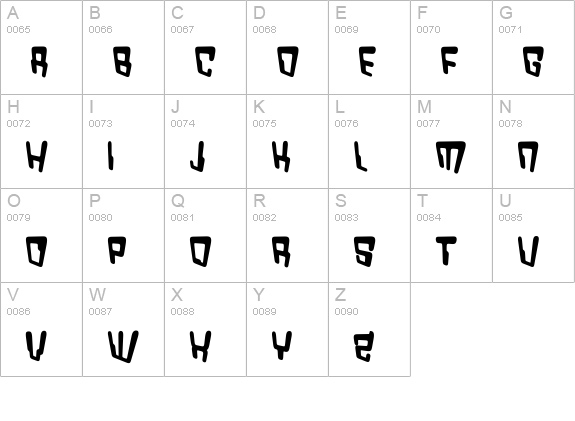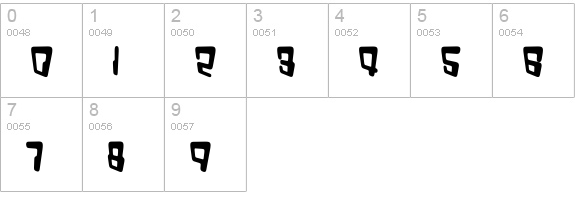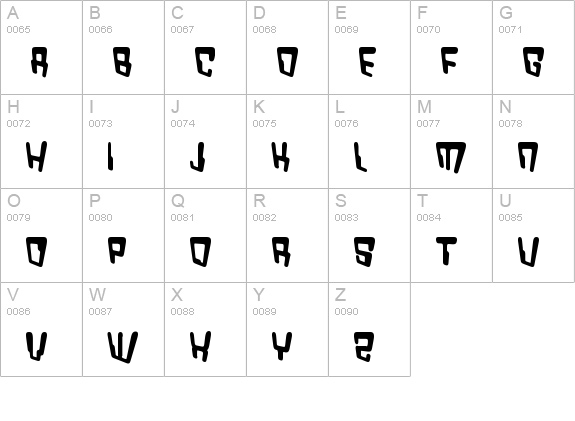
VTC Bad DataTrip Bold Font Details
VTC Bad DataTrip Bold is a strong, high-contrast variant in the VTC typeface family \xE2\x80\x94 well suited to headlines, attention-grabbing titles, and strong calls-to-action.
Introducing VTC Bad DataTrip Bold font, a captivating typeface that exudes a bold and adventurous spirit. This font is perfect for anyone seeking to add a touch of edginess and modernity to their designs. With its strong and impactful letterforms, VTC Bad DataTrip Bold demands attention and effortlessly stands out from the crowd. This font's unique character lies in its rugged and distorted appearance, which adds a sense of rebelliousness and non-conformity to any project. Whether you're designing a poster, a logo, or a website, VTC Bad DataTrip Bold will bring a fresh and daring vibe to your creations. What's even better is that VTC Bad DataTrip Bold is available for free download at FontsMarket.com. Yes, you read that right - this extraordinary font is freely accessible, allowing you to explore its limitless possibilities without any limitations. Take advantage of this opportunity to unleash your creativity and embark on a design journey like no other. Unleash the power of VTC Bad DataTrip Bold font and let your imagination run wild. Elevate your designs to new heights with this captivating typeface that effortlessly combines boldness, uniqueness, and a touch of rebelliousness. Download it now at FontsMarket.com and experience the freedom of creativity like never before.